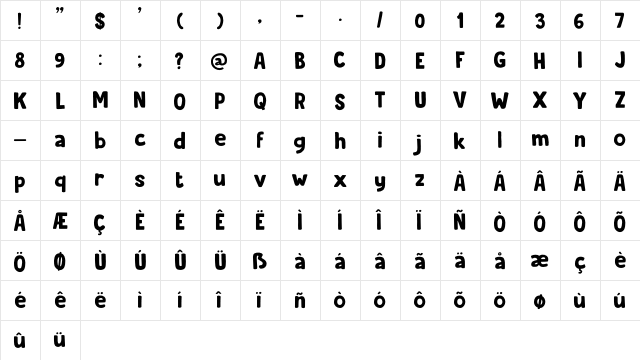
Beanstalker DEMO Regular Font Preview
Beanstalker DEMO Regular
Beanstalker DEMO Regular Font Details
| Foundry | David Kerkhoff |
| Designer | David Kerkhoff |
Design Context for Beanstalker DEMO Typeface
Beanstalker DEMO takes a measured approach to typography — its balanced proportions and neutral character make it a reliable workhorse for both digital and print work.